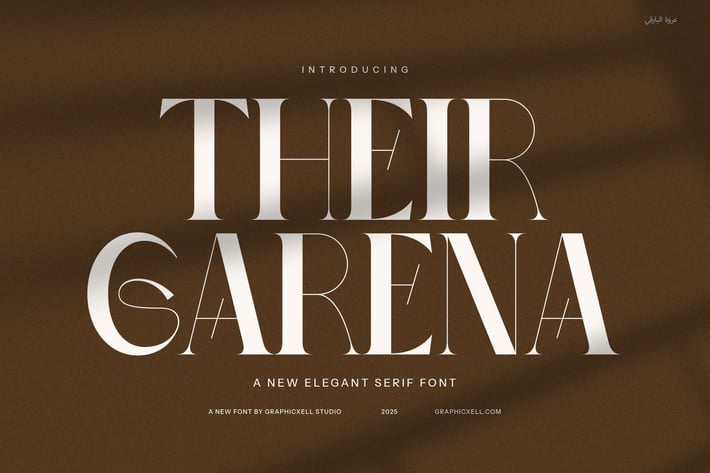
Their Garena Elegant Serif Font
Their Garena Elegant Serif Font is a masterpiece of modern typography, blending sophistication with artistic flair. Designed to captivate, this font features beautifully crafted ligatures and unique alternate forms, adding a touch of exclusivity and refinement to any project. With its graceful curves, high contrast strokes, and stylish serifs, Their Garena embodies luxury and elegance, making it an essential choice for premium branding, editorial layouts, and high-end marketing materials.
Perfect for logos, fashion labels, boutique packaging, and upscale advertisements, Their Garena exudes a timeless yet contemporary aesthetic. Its meticulous details and fluid letterforms create a harmonious balance between boldness and delicacy, ensuring an eye-catching presence in any design. Whether you’re crafting an elegant magazine headline, designing a refined website, or creating a distinctive product label, this font adds a polished and sophisticated touch.
Beyond its stunning appearance, Their Garena offers remarkable versatility. The inclusion of stylish alternates and artistic ligatures allows designers to experiment with custom typography, giving each project a unique and bespoke feel. Its exceptional readability makes it suitable for both digital and print applications, ensuring a flawless visual experience across different platforms.
If you're looking for a font that embodies luxury, creativity, and elegance, Their Garena Elegant Serif Font is the perfect choice. Elevate your designs with its timeless charm and distinctive features, transforming every project into a true work of art.